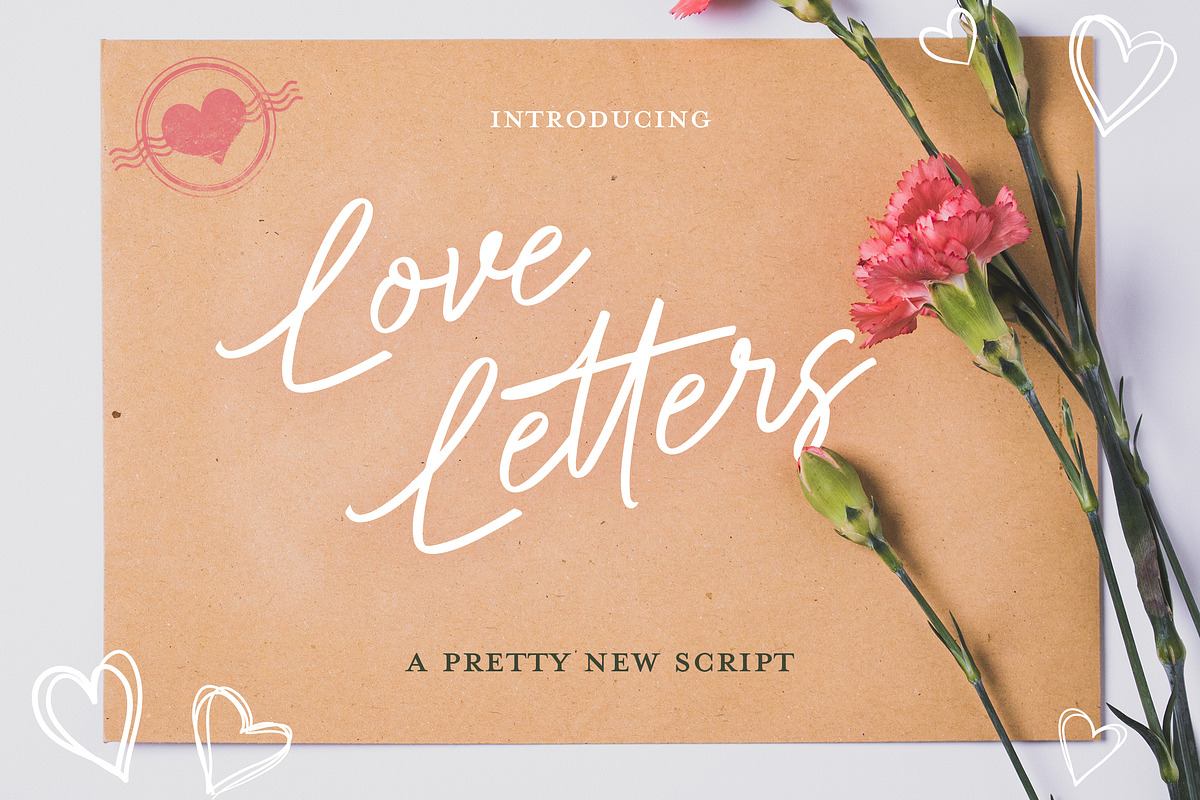
Love Letters Script Font Free Download is a romantic and elegant handwritten typeface that captures the beauty of heartfelt expression. With its flowing curves, delicate strokes, and charming swashes, this font is perfect for wedding invitations, love notes, branding for boutiques, feminine logos, and social media graphics that need a soft, emotional touch.
Designed to feel like authentic cursive handwriting, Love Letters brings warmth and personality to both print and digital projects. Its stylish ligatures and alternates add a custom, calligraphic feel that enhances any design with grace.